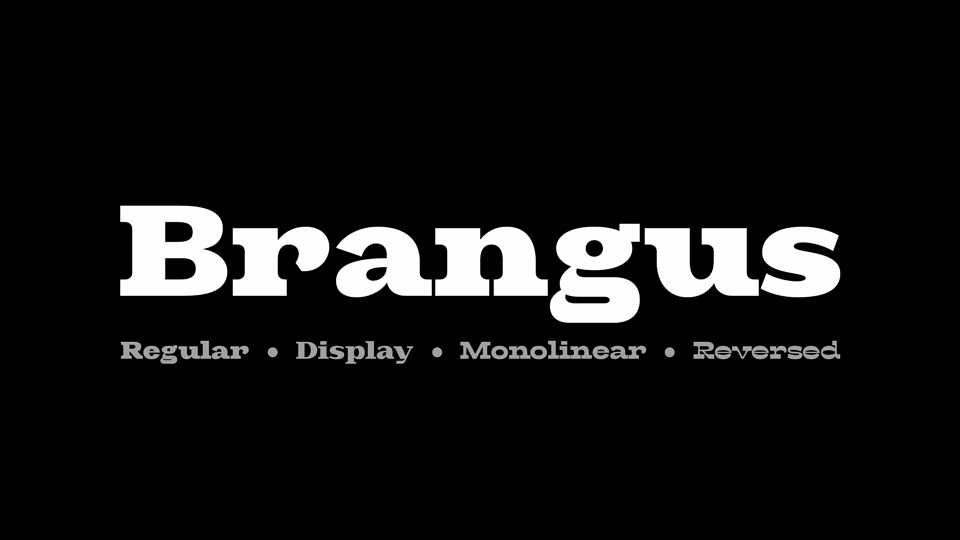
Download Brangus typeface, a fat slab variable font family in four styles, including variable font with a contrast axis ranging from high vertical contrast to high horizontal contrast.
Designer: Backpacker